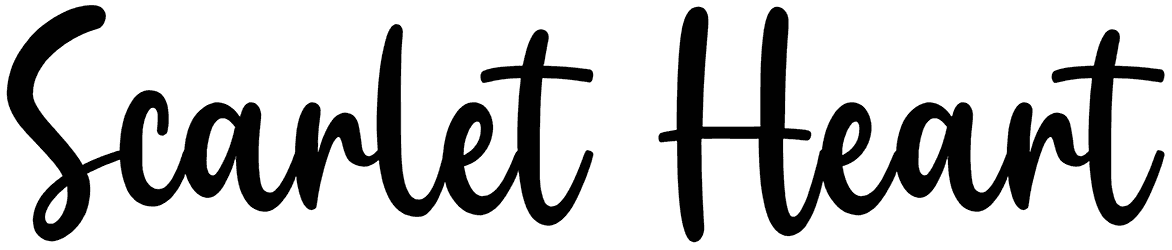
Scarlet Heart Font
Most of the time, a natural and modern style would be the best approach to leave a lasting impact on your viewers. This handwritten font with its soft visual will serve you well as a nice adornment for many projects, such as a bridal shower invitation Instagram post. The Scarlet Heart font is going to be a useful letterform for your different projects, from formal to informal ones.